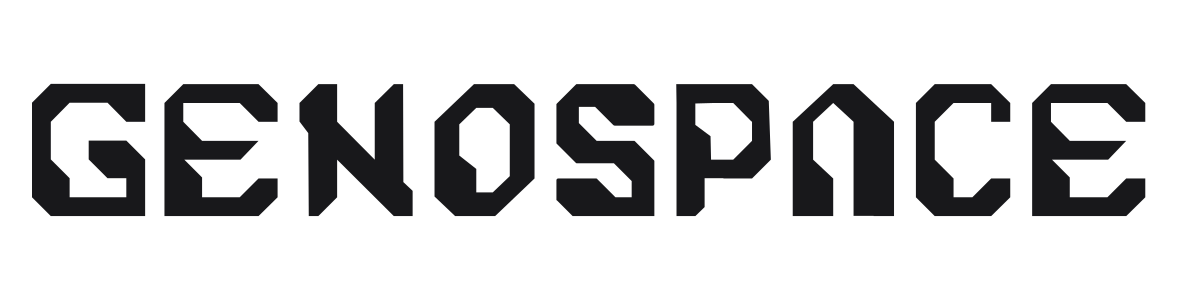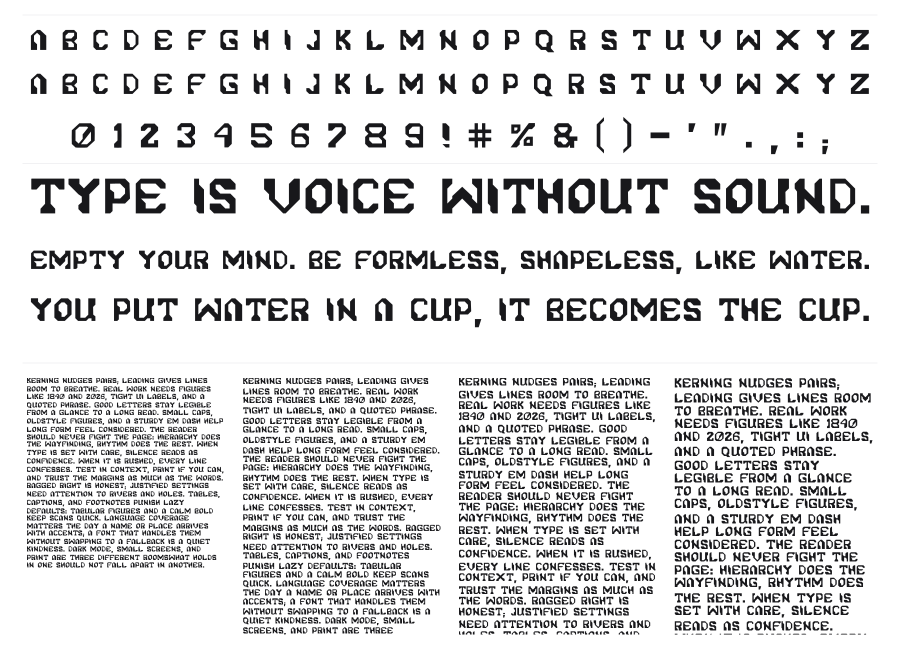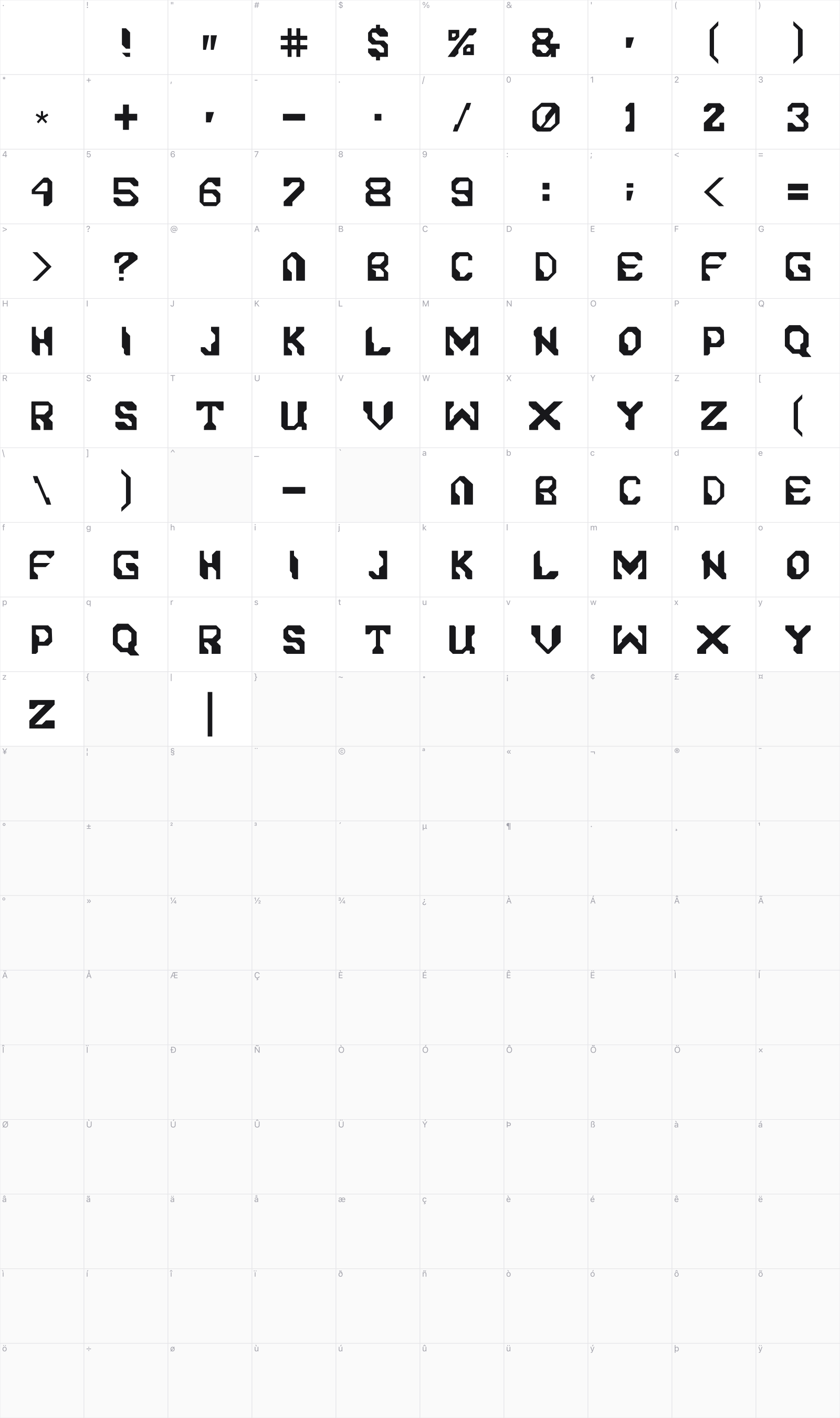
Genospace
Genospace is a bold geometric techno font built from angular, modular segments with sharp diagonal cuts at every terminal. The construction feels deliberately mechanical, like characters assembled from industrial components rather than drawn. It hits hard at large sizes for titles, gaming interfaces, and sci-fi branding.